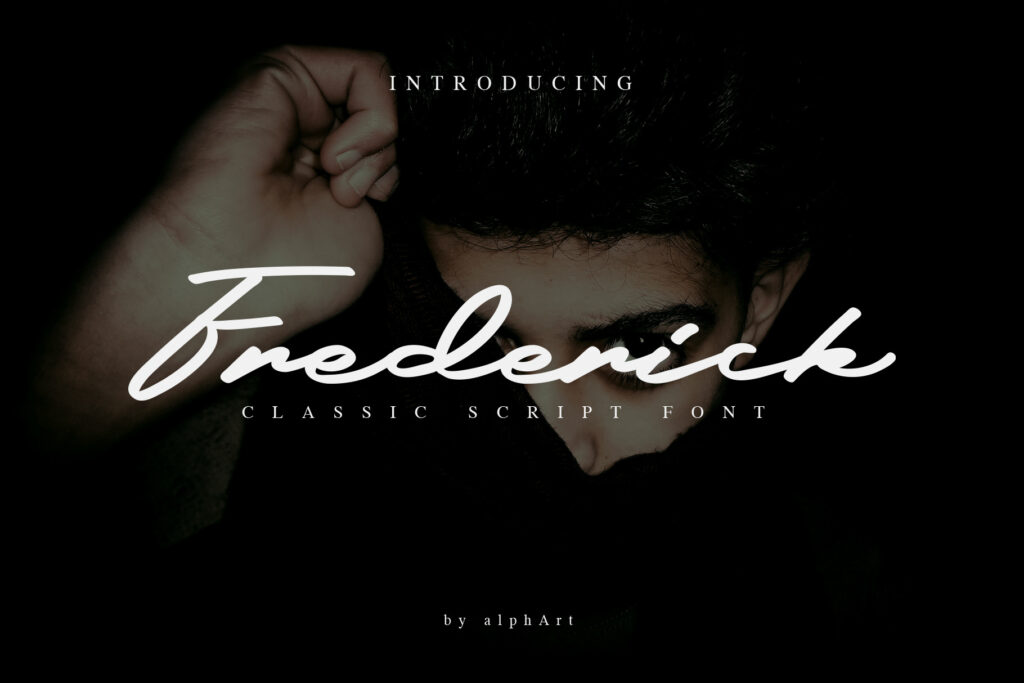
Frederick – a Classic Script Font is a handwritten script font with a simple and classy style, this font is great for your next creative projects such as watermark on photography, signature or signature logo design, quotes, album cover, business card, and many other design project. From business cards to photo watermarks, Frederick is here to elevate your work to the highest level.